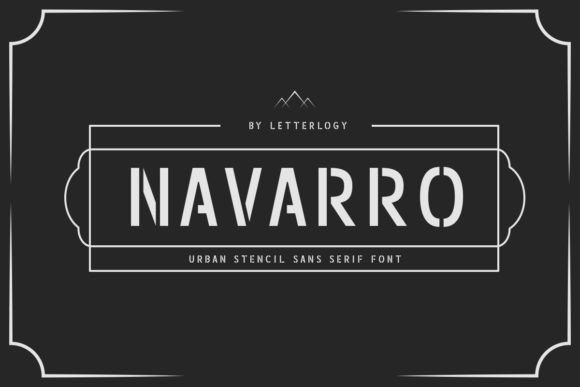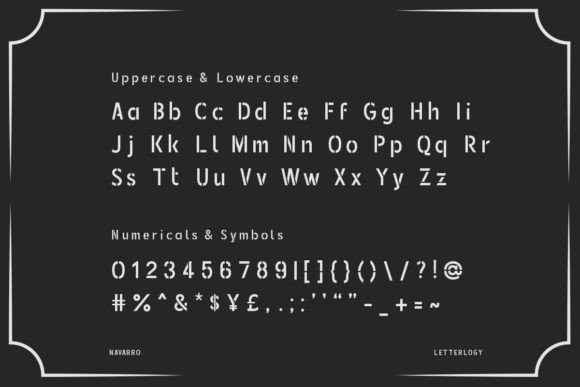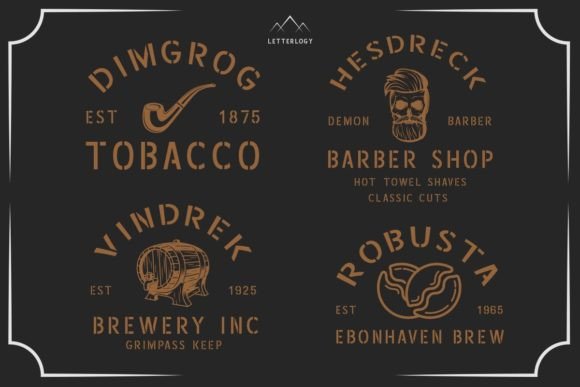
Navarro Font
Introducing Navarro
The retro & vintage urban sans serif stencil font aims to bring the grunge & grit from the urban landscapes of the past into your designs with its simple geometric form and a strong commanding appearance.
The perfect companion for your vintage & retro urban designs & displays.